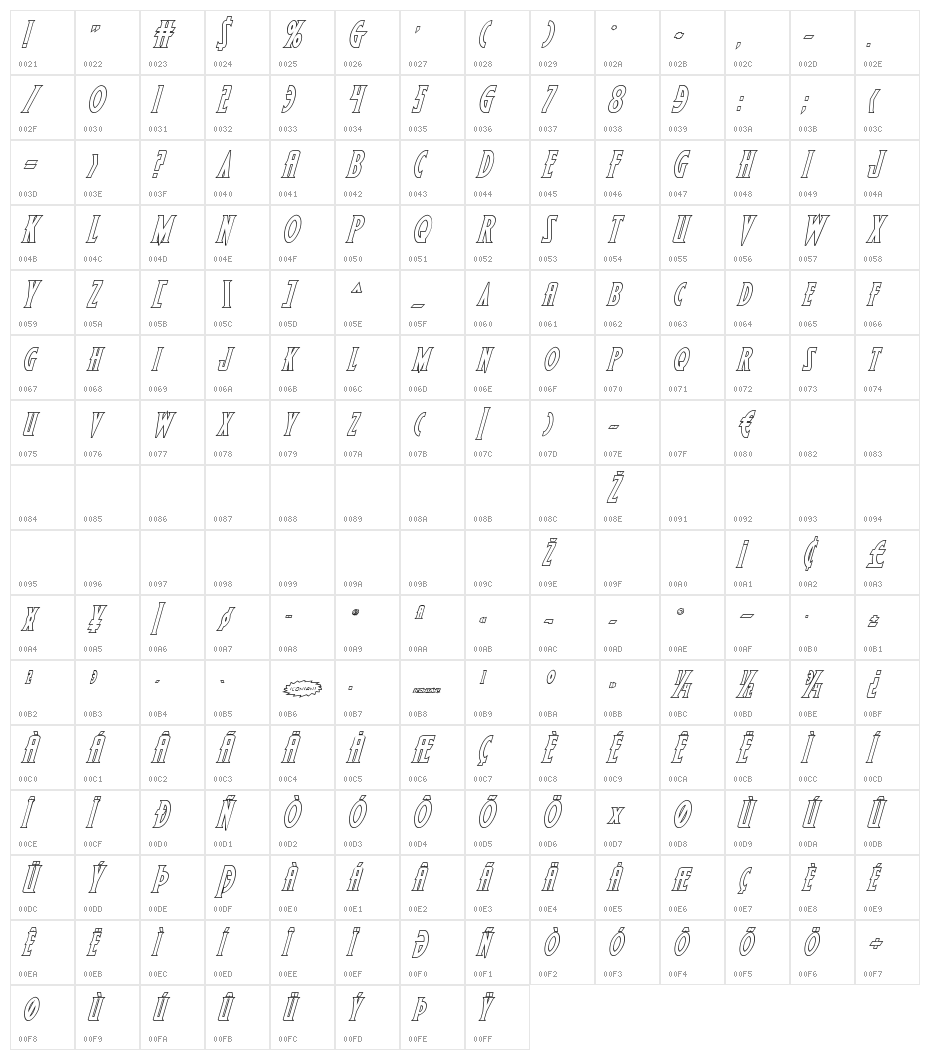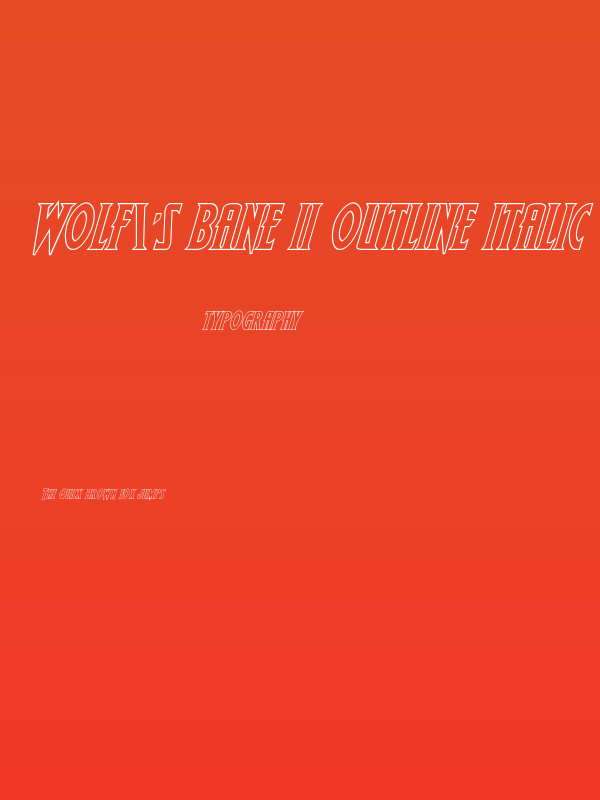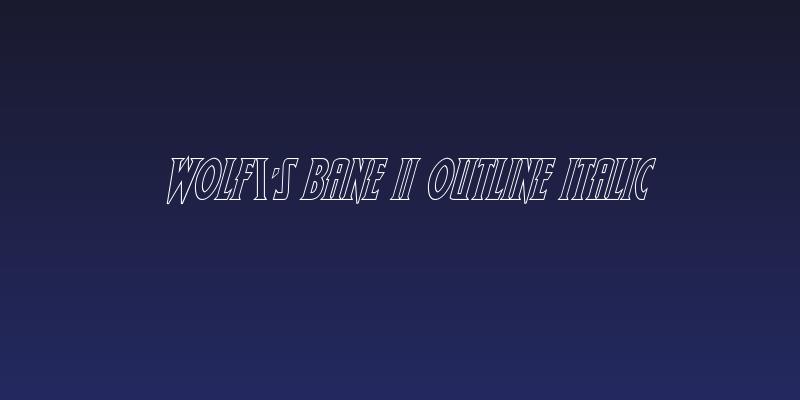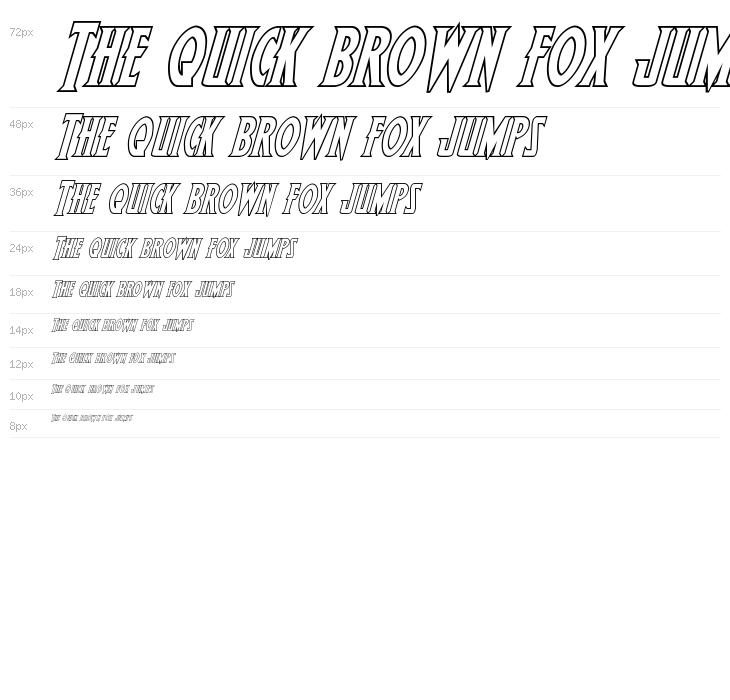
Wolf's Bane II Outline Italic Font
Wolf's Bane II Outline Italic Description
This font features a bold, italicized outline style that gives it a dynamic and energetic appearance. The characters are sharply angled with a distinct slant, creating a sense of movement and urgency. The outline design adds a layer of depth, making the letters stand out prominently. This font's unique style is both modern and slightly aggressive, ideal for capturing attention. The uppercase and lowercase letters maintain consistency in their slanted form, while the numbers and special characters follow the same bold outline pattern. The overall aesthetic is striking and impactful, suitable for projects that require a bold statement.
| Proposed Projects | Ideal for sports branding, action-themed posters, video game titles, and dynamic advertising campaigns. |